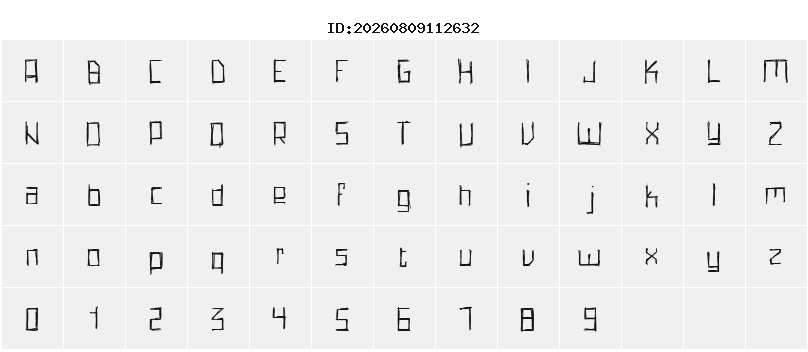
PencilGrid Preview
• Font Name: PencilGrid
• Designer: prask
About PencilGrid.ttf
PencilGrid.ttf is a modern, elegant sans-serif font designed for ultimate readability and visual harmony. Perfect for branding, headlines, web design, and print materials.